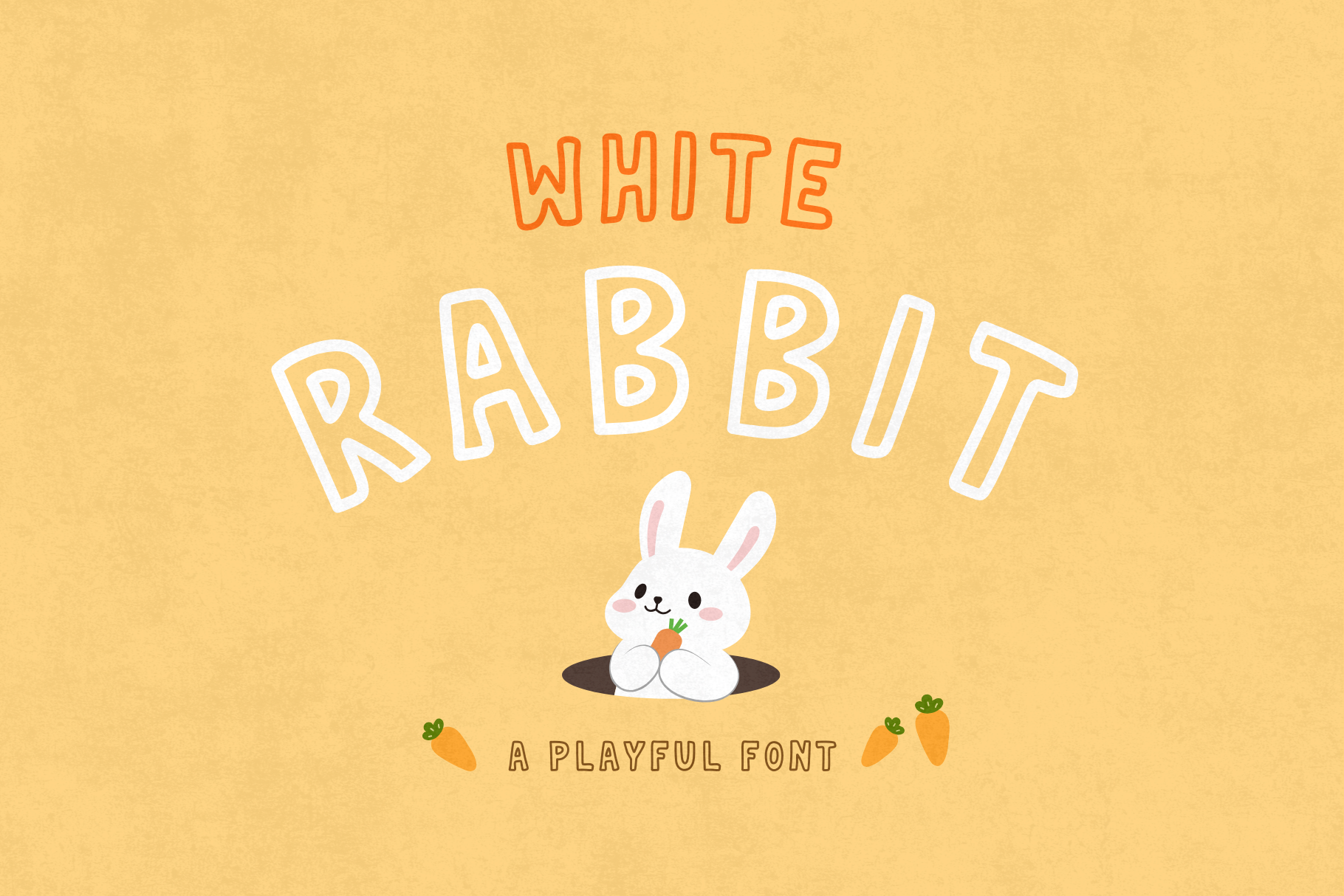
Playful Handwritten Display Font
Playful and cute handwritten display font with a hand-drawn touch—perfect for children's books, fun designs, and whimsical kids' projects.